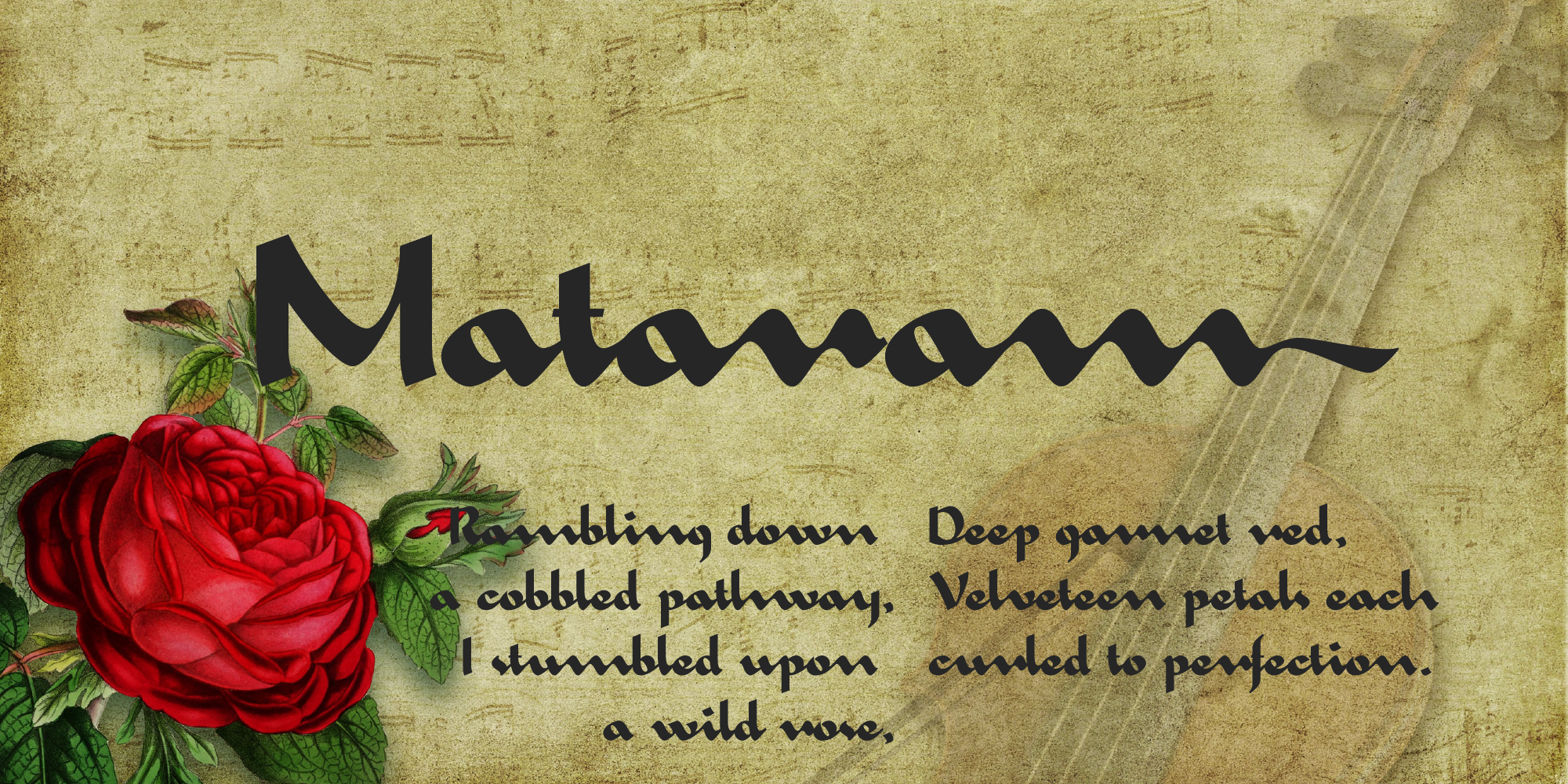
Mataram Font is perfect for Indonesian cultural heritage branding, Southeast Asian restaurant marketing, traditional Indonesian batik design materials, Javanese cultural exhibitions, Indonesian tourism promotions, and authentic Indonesian arts and crafts campaigns. Its cultural character makes it ideal for Indonesian cultural centers, traditional Indonesian artisans, Southeast Asian museums, Indonesian language schools, and any application requiring distinctive typography that conveys Indonesian authenticity, Javanese elegance, and the rich cultural heritage of Indonesian traditional arts and ancient royal kingdoms.
Mataram Font is exciting because it honors the magnificent cultural legacy and royal heritage of the ancient Mataram Kingdom through elegantly crafted letterforms that reflect the sophisticated artistry and cultural refinement of traditional Indonesian civilization. Its royal proportions and Indonesian-inspired details evoke the majestic temples and palace arts of Java, making it perfect for organizations seeking to celebrate authentic Indonesian culture and preserve traditional Southeast Asian heritage. The font's Indonesian character transforms communications into expressions of cultural pride and royal dignity.
Mataram Font family includes culturally-inspired weight variations typically featuring Light, Regular, Medium, and Bold options with traditional styling that maintains Indonesian authenticity. The family often incorporates Indonesian symbols, Javanese ornaments, and Southeast Asian cultural elements designed for heritage applications, providing designers with comprehensive tools for creating authentic, Indonesian-focused typographic compositions.
When selecting Indonesian cultural typography solutions, Mataram Font Free Download represents an exceptional choice for Southeast Asian heritage and cultural projects. This distinguished typeface brings instant Indonesian authenticity to any design, making it invaluable for Indonesian cultural organizations, Southeast Asian businesses, and heritage preservation groups celebrating Indonesian traditions. Whether you're developing Indonesian cultural exhibition materials, creating traditional Indonesian restaurant branding, or designing Southeast Asian tourism campaigns, Mataram Font provides the cultural authenticity and Indonesian elegance essential for honoring Indonesian heritage in today's multicultural Southeast Asian marketplace.